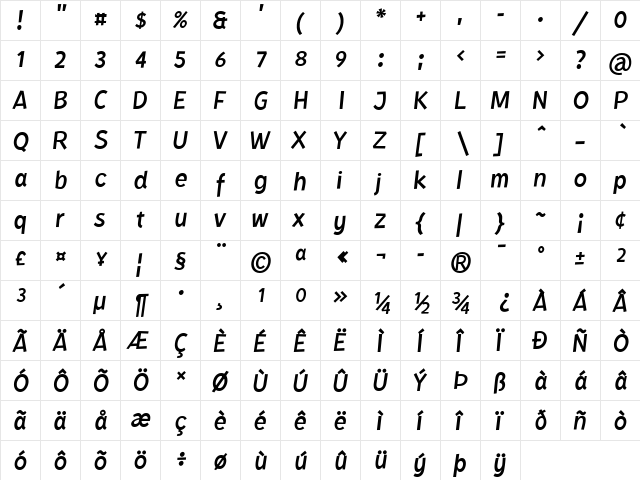
Kurri Island Italic Light Regular Font Preview
Design Context for Kurri Island Italic Light Typeface
Kurri Island Italic Light takes a measured approach to typography — its balanced proportions and neutral character make it a reliable workhorse for both digital and print work. The slanted form adds forward momentum and visual energy. The delicate stroke weight brings airiness and refinement to layouts.
Pro Tip: Try Kurri Island Italic Light for annotation and caption copy alongside an upright companion — the contrast in angle creates a dynamic but ordered typographic system.